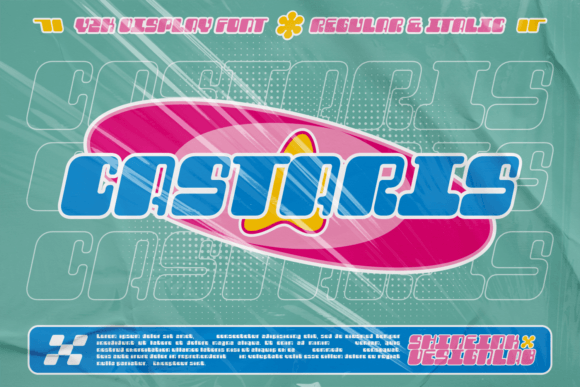
Introducing Castaris Font: A Bold and Futuristic Typeface Inspired by the Y2K Era
In the world of typography, fonts play a crucial role in conveying the tone and aesthetic of a design. For designers and crafters looking to add a touch of futurism and optimism to their work, Castaris Font is an excellent choice. Inspired by the sleek and edgy designs of the turn of the millennium, Castaris embodies the essence of the digital revolution that marked the era.
The Y2K Influence
Castaris Font is a bold and angular typeface that pays homage to the futuristic and optimistic aesthetic of the Y2K era. The letters are meticulously crafted with sharp lines and distinct geometric shapes, evoking a sense of modernity and cutting-edge technology. The font’s strokes are slightly exaggerated, adding an extra touch of flair to the characters. This exaggerated nature of the strokes reflects the boldness and confidence that defined the Y2K period when technology was rapidly advancing and pushing boundaries.
Castaris Font boasts a range of design characteristics that make it an excellent choice for designers and crafters. Some of its key features include:
- Bold and Angular Letters: The letters of Castaris are bold and angular, reminiscent of the sleek and edgy designs that were popular during the Y2K era.
- Sharp Lines and Geometric Shapes: Each character is meticulously crafted with sharp lines and distinct geometric shapes, evoking a sense of modernity and cutting-edge technology.
- Exaggerated Strokes: The font’s strokes are slightly exaggerated, adding an extra touch of flair to the characters.
- Modern and Futuristic Aesthetic: Castaris embodies the essence of the digital revolution that marked the Y2K era, making it an excellent choice for designs that require a modern and futuristic aesthetic.
Uses for Castaris Font
Castaris Font is a versatile typeface that can be used in a variety of design applications, including:
- Digital Designs: Castaris is perfect for digital designs, such as website headers, social media graphics, and digital advertising.
- Print Designs: The font can also be used in print designs, such as posters, flyers, and brochures.
- Branding and Identity: Castaris can be used to create bold and eye-catching logos and brand identities.
- Crafting and DIY Projects: The font can also be used in crafting and DIY projects, such as handmade cards, scrapbooking, and other paper crafts.
Why Choose Castaris Font?
There are many reasons why designers and crafters should choose Castaris Font for their projects. Some of the benefits of using Castaris include:
- Unique and Eye-Catching: Castaris is a unique and eye-catching font that is sure to grab attention.
- Versatile: The font can be used in a variety of design applications, from digital designs to print designs.
- Easy to Read: Despite its bold and angular design, Castaris is easy to read, making it perfect for body text and headlines.
- Futuristic Aesthetic: The font’s futuristic aesthetic makes it perfect for designs that require a modern and cutting-edge look.
In conclusion, Castaris Font is an excellent choice for designers and crafters looking to add a touch of futurism and optimism to their work. With its bold and angular design, sharp lines and geometric shapes, and exaggerated strokes, Castaris embodies the essence of the digital revolution that marked the Y2K era. Whether you’re working on a digital design, print design, branding and identity project, or crafting and DIY project, Castaris is a versatile typeface that is sure to impress.